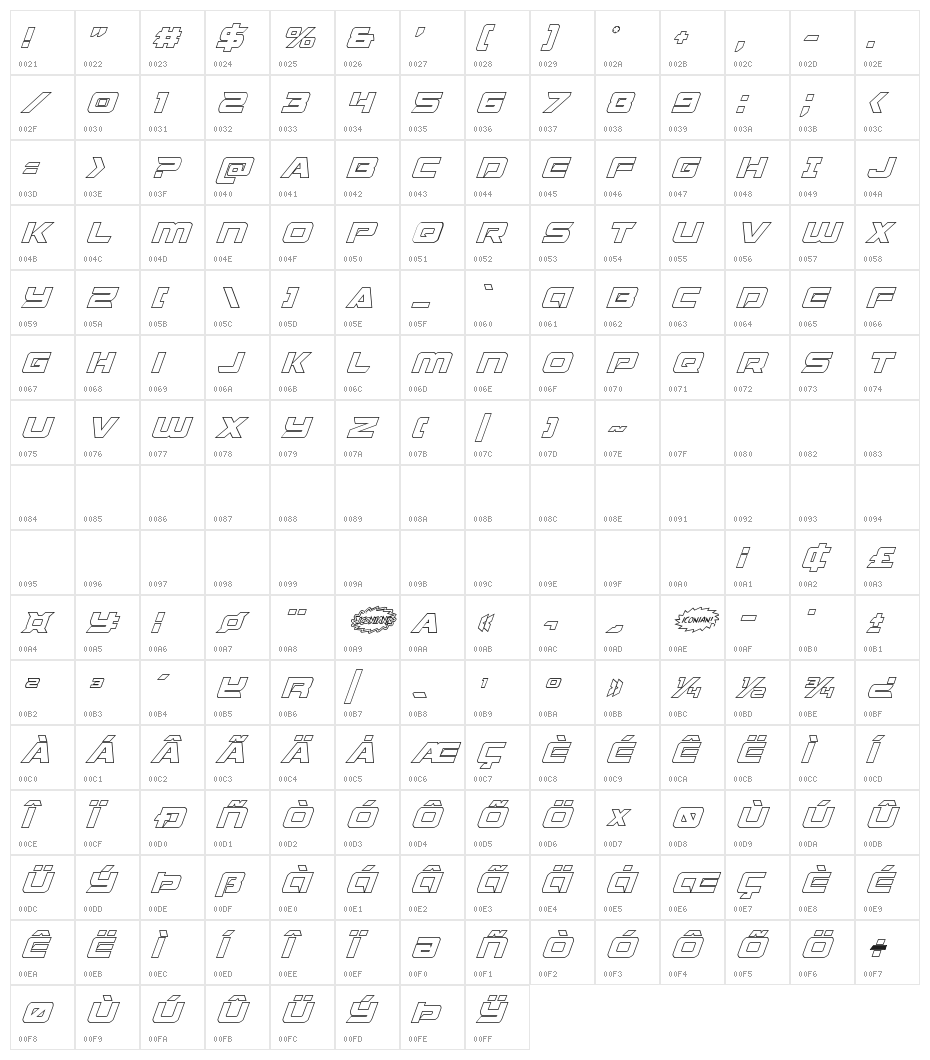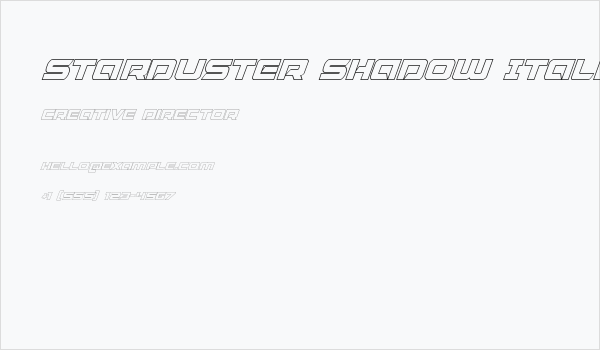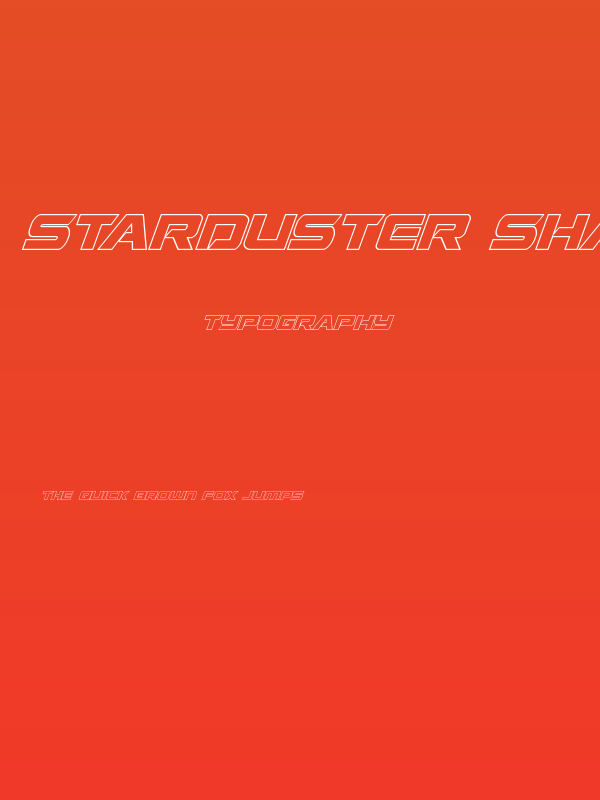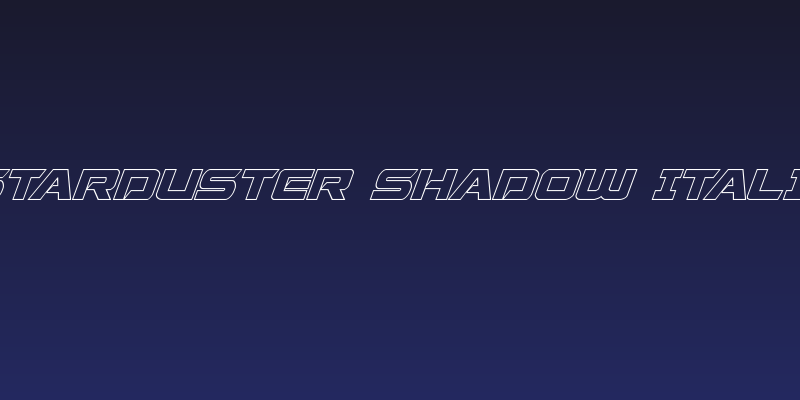
Starduster Shadow Italic Font
Starduster Shadow Italic Description
This font features a dynamic and futuristic design with a shadow effect that gives it a three-dimensional appearance. The characters are italicized, adding a sense of motion and speed. The uppercase and lowercase letters maintain a consistent style, with sharp angles and clean lines. The numbers and special characters are designed to match the overall aesthetic, making them suitable for a cohesive look. The font's outline style adds a unique touch, making it stand out in various design applications.
| Proposed Projects | Ideal for sci-fi themed projects, video game titles, posters, and branding that requires a modern and edgy look. |